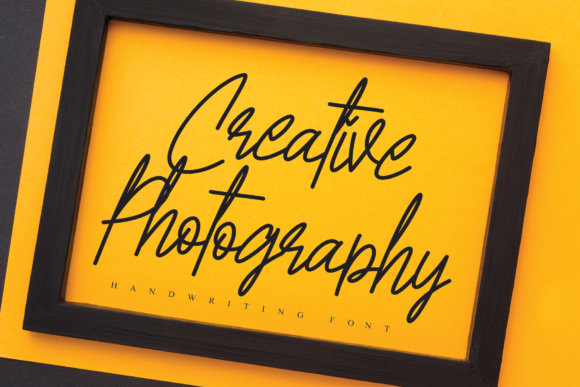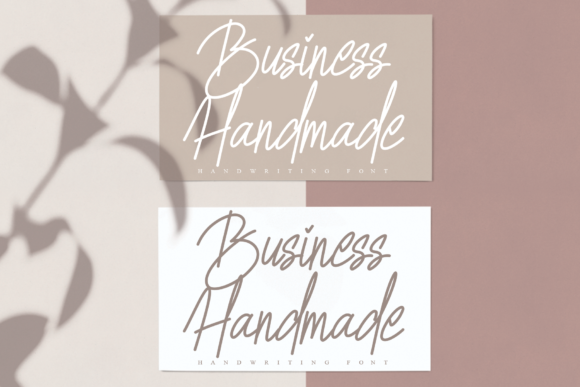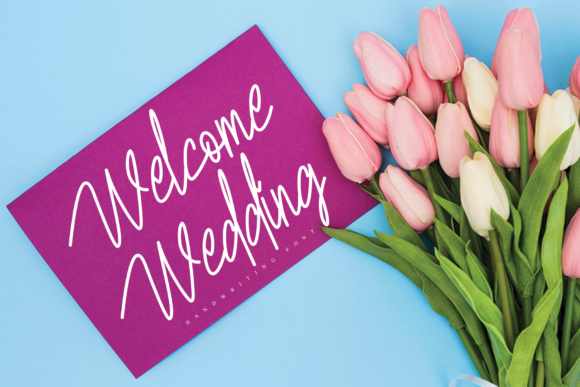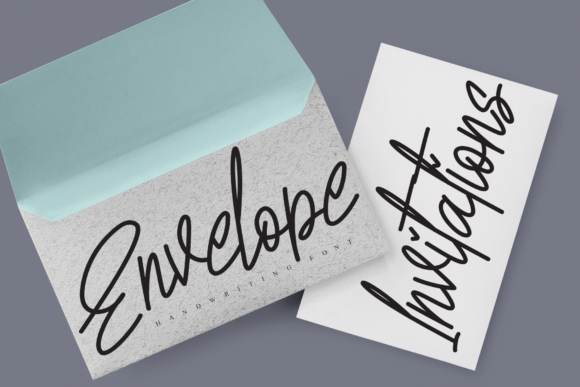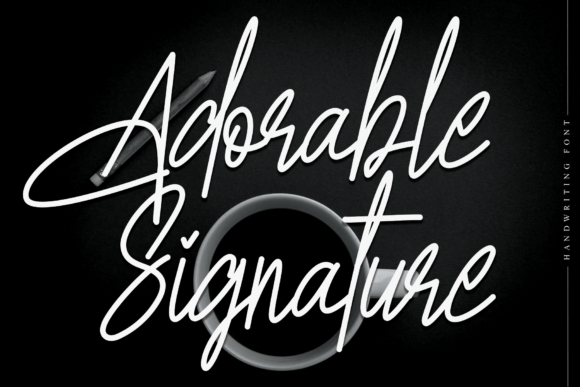
Introducing Adorable Signature Font: Elevate Your Designs with Elegance
Are you a designer or crafter looking for a font that adds a touch of sophistication and whimsy to your projects? Look no further than Adorable Signature Font, a stylish and incredibly elegant script font that is sure to take your designs to the next level.
The Perfect Font for Wedding Invitations and More
Adorable Signature Font is a versatile font that looks stunning on a variety of design materials, including wedding invitations, thank you cards, quotes, greeting cards, logos, and business cards. Its elegant and flowing script style adds a touch of romance and sophistication to any design, making it perfect for special occasions and events.
What Makes Adorable Signature Font So Special?
Adorable Signature Font is a high-quality font that is designed to mimic the look and feel of handwritten script. Its unique and elegant style is sure to make your designs stand out from the crowd, and its versatility makes it suitable for a wide range of projects. Whether you’re designing a wedding invitation, a logo, or a social media graphic, Adorable Signature Font is the perfect choice.
Key Features of Adorable Signature Font
- Elegant Script Style: Adorable Signature Font features a beautiful, flowing script style that adds a touch of sophistication to any design.
- Versatile: This font is perfect for a wide range of projects, including wedding invitations, thank you cards, quotes, greeting cards, logos, and business cards.
- Handwritten Touch: Adorable Signature Font is designed to mimic the look and feel of handwritten script, adding a personal and unique touch to your designs.
- High-Quality: This font is designed to be clear and legible, even at small sizes, making it perfect for a variety of applications.
Tips and Tricks for Getting the Most Out of Adorable Signature Font
- Pair with Other Fonts: Adorable Signature Font looks great when paired with other fonts. Try pairing it with a bold sans-serif font for a striking contrast.
- Experiment with Colors: Adorable Signature Font looks great in a variety of colors. Try experimenting with different colors to find the perfect look for your design.
- Add Decorations: Consider adding decorations, such as flourishes or swashes, to give your design an extra touch of elegance.
Adorable Signature Font is a stylish and elegant script font that is perfect for designers and crafters looking to add a touch of sophistication to their projects. With its versatile style and high-quality design, it’s the perfect choice for a wide range of applications. Whether you’re designing a wedding invitation, a logo, or a social media graphic, Adorable Signature Font is sure to elevate your designs to the next level.